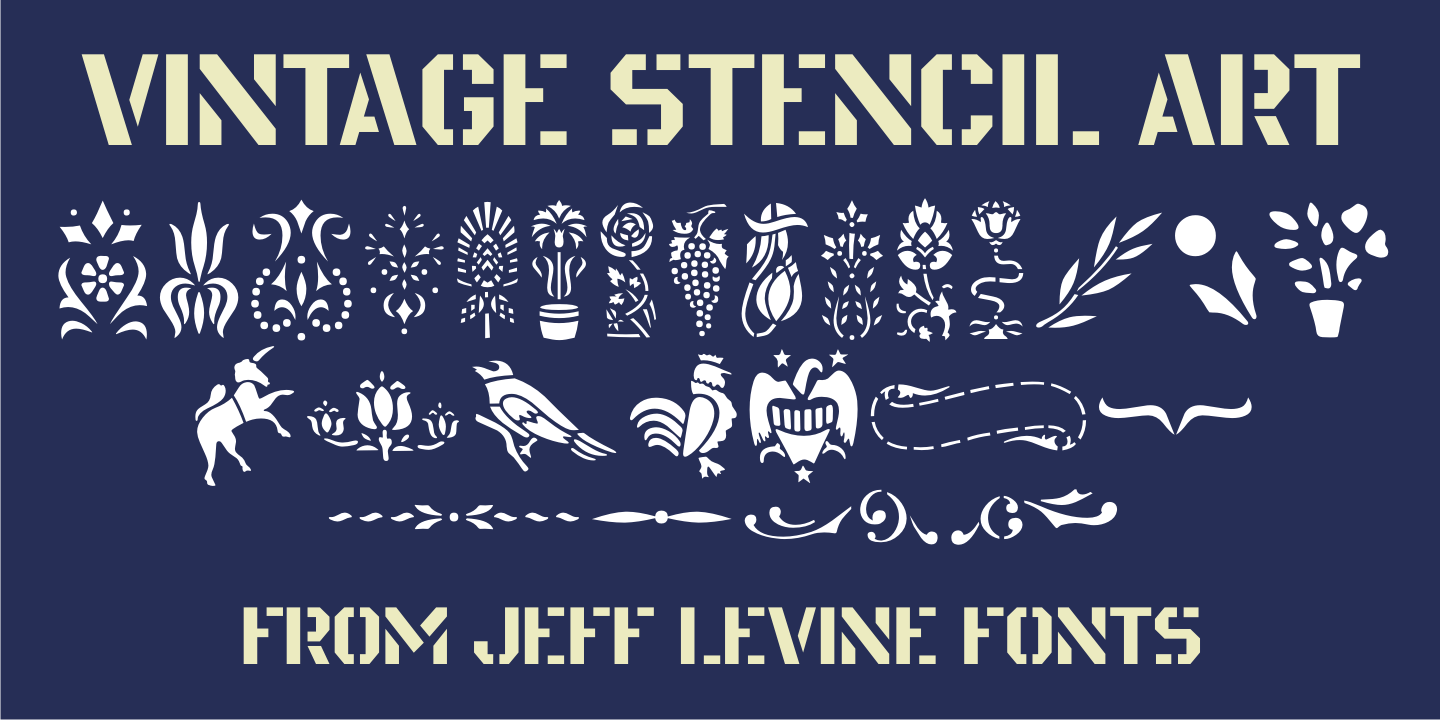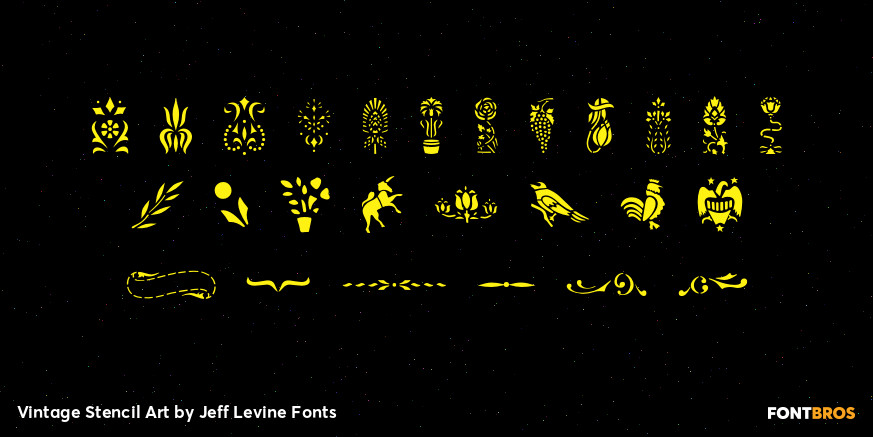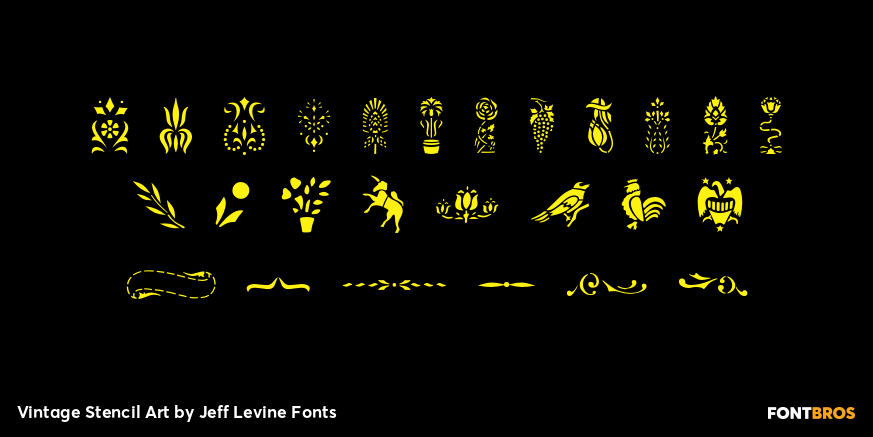
Vintage Stencil Art
Vintage Stencil Art JNL collects another twenty-six charming designs, all re-drawn from antique and vintage stencil sources. These images make for the perfect embellishment to typographic projects which utilize stencil type, or the designs can be applied as decorative thematic backgrounds (such as a flower show, nature walks and so forth).